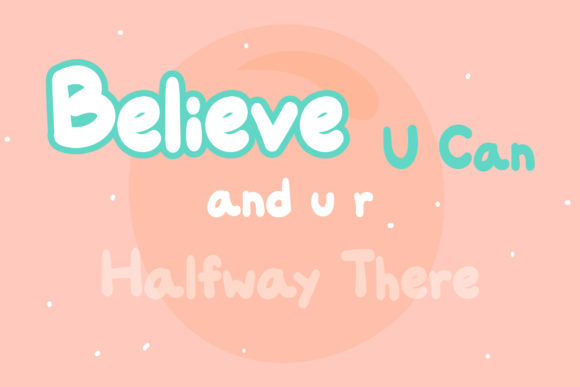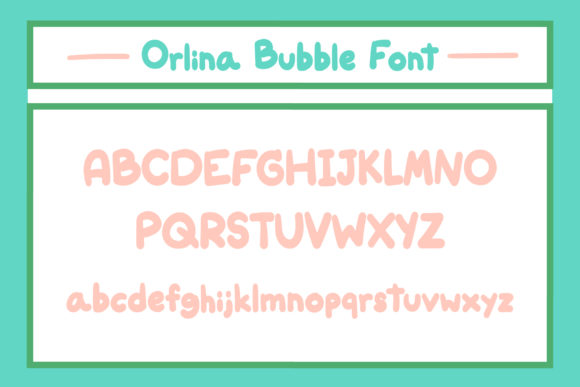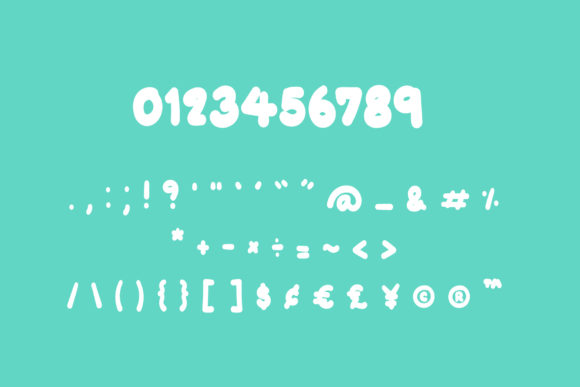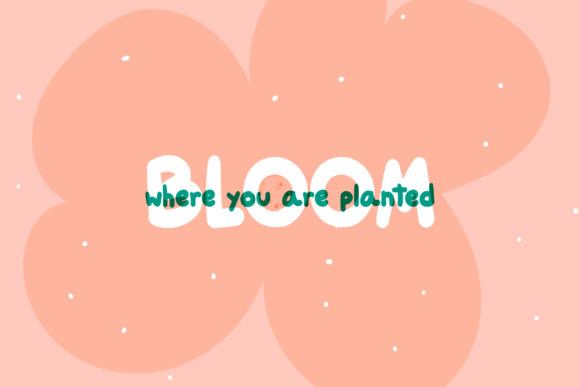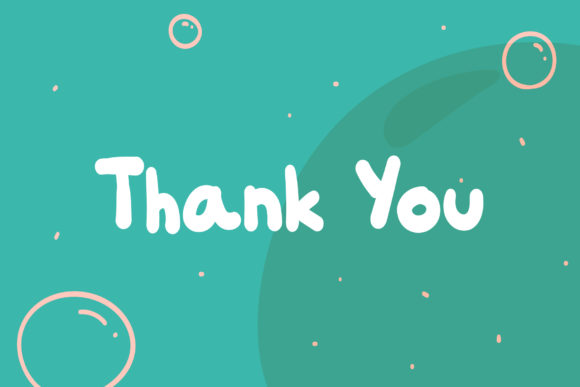
Introduction to Orlina Bubble Font
As a designer, there’s nothing quite like the thrill of stumbling upon a font that instantly elevates your creative project. It’s that moment when all the pieces fall into place, and your vision starts to take shape. For me, that moment came when I discovered the Orlina Bubble Font – a true gem that has become an indispensable design resource.
With its bold, handwritten charm, the Orlina Bubble Font effortlessly adds a touch of personality to any design. Whether you’re working on a high-quality brochure or a digital campaign, this font’s versatility makes it an invaluable asset. Its free download and transparent background capabilities make it a breeze to integrate into your project, allowing you to focus on the creative aspects.
As a design enthusiast, I can attest to the value of having a reliable, high-quality font like Orlina Bubble at your fingertips. It’s the perfect companion for any creative endeavor, and I’m excited to share its unique features and benefits with you.
Key Features of Orlina Bubble Font
- The Orlina Bubble Font is a high-quality design resource ideal for creative projects, offering a unique and playful aesthetic.
- The font size is designed to be versatile, with a range of sizes suitable for various applications, from small text to large headings.
- The font’s unique bubble-like design elements make it perfect for creating eye-catching and creative visual effects.
- The Orlina Bubble Font is ideal for designers looking for a high-quality, free design resource to elevate their creative projects.
Honest Review: Orlina Bubble Font
One of the standout features of the Orlina Bubble Font is its high-quality design. The bubbly, playful style is perfect for creative projects that require a touch of whimsy. I used it for a client’s children’s book project and received rave reviews.
- May not be suitable for formal or corporate projects due to its playful style
- Some users may find the font a bit too bubbly or overwhelming
Overall, I’m thoroughly impressed with the Orlina Bubble Font. It’s a valuable design resource that’s sure to add a touch of personality to any project. If you’re looking for a fun and playful font for your next creative project, I highly recommend giving it a try.
To achieve the best results, use the Orlina Bubble Font on a transparent background. This will allow the font to stand out and give your design a clean, modern look. Experiment with different font sizes and colors to find the perfect combination for your project.
The Orlina Bubble Font is perfect for a variety of creative projects, including social media graphics, blog posts, and infographics. Its unique design and high-quality appearance make it a great choice for designers looking to add a touch of elegance to their work.